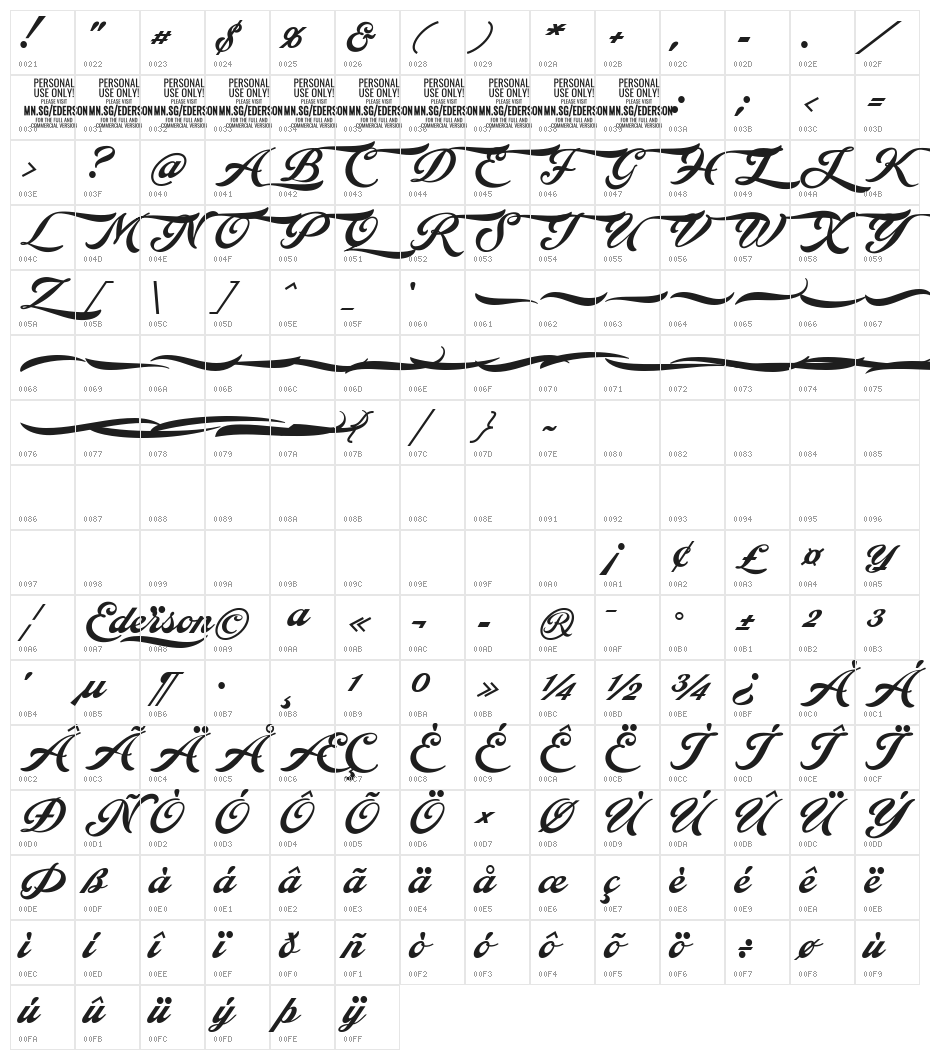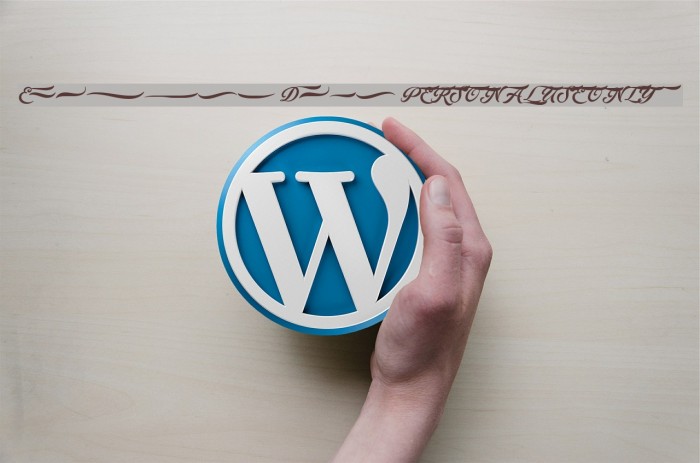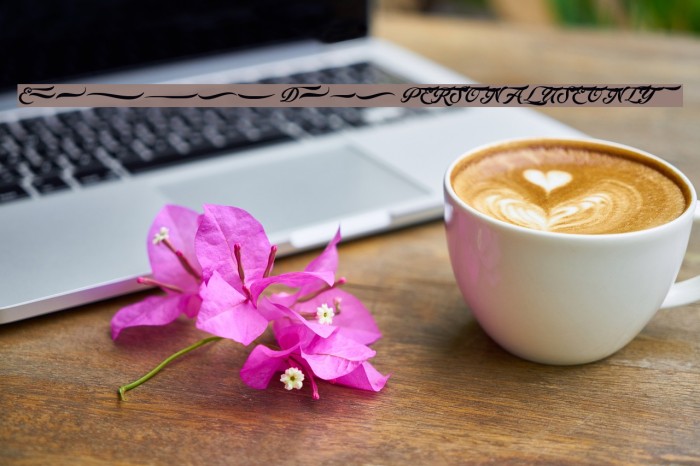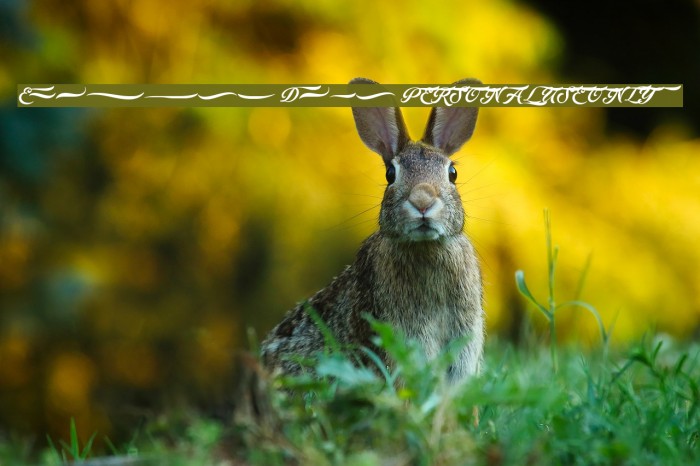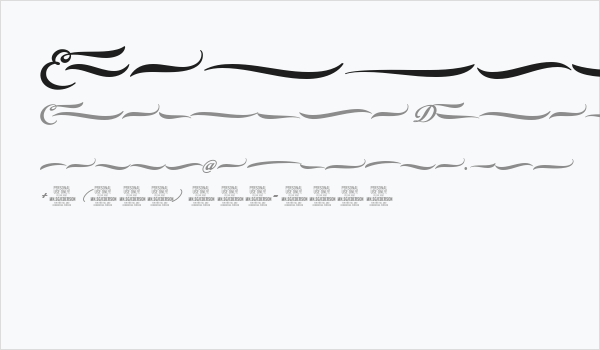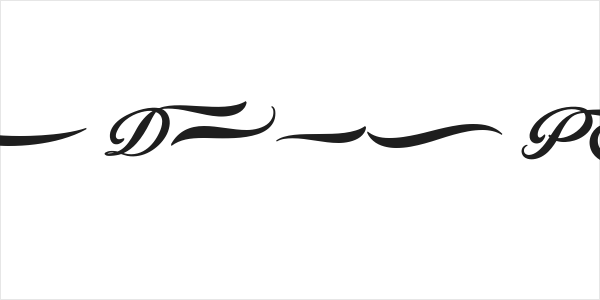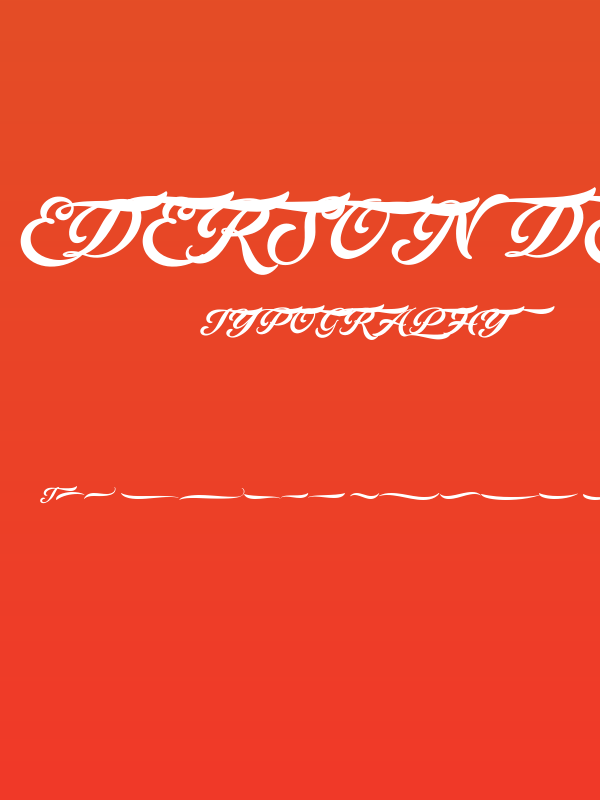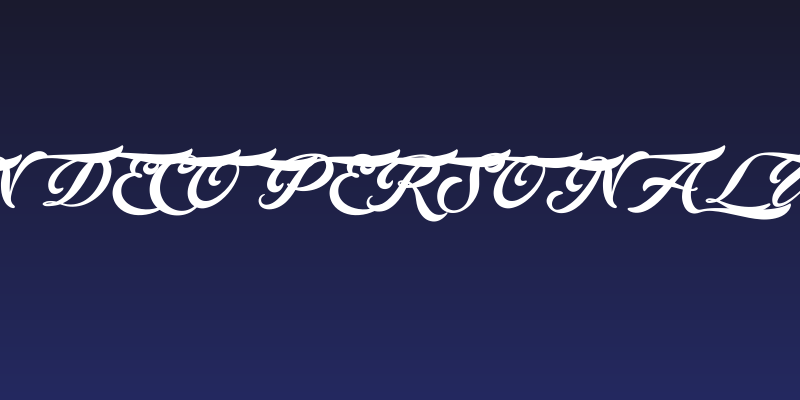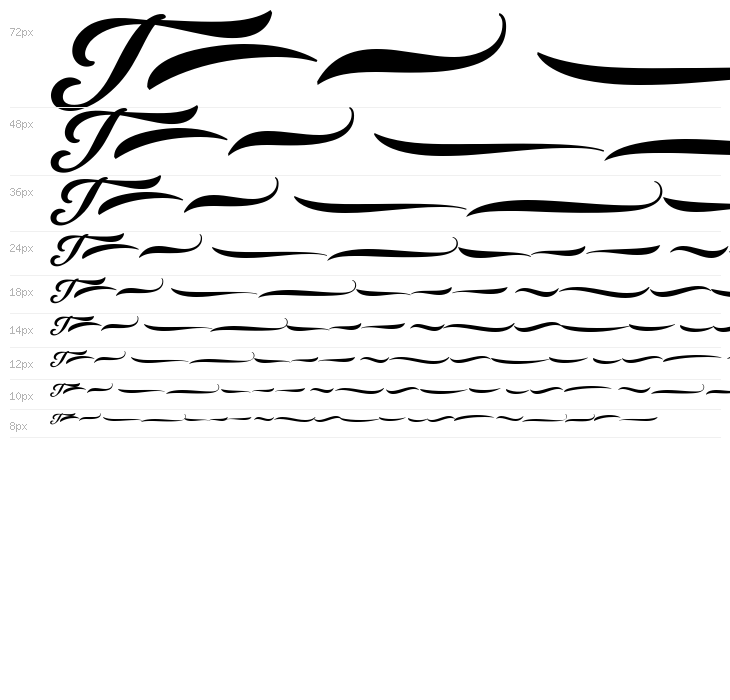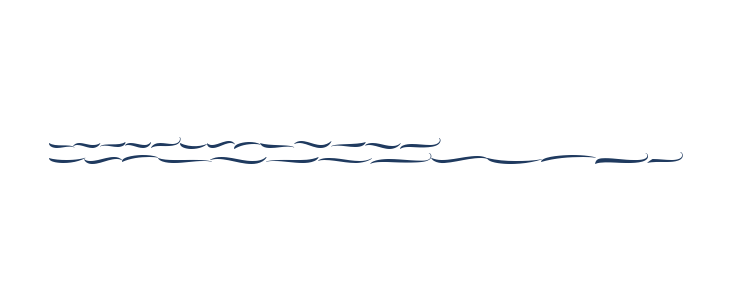
Ederson Deco PERSONAL USE ONLY Font
Ederson Deco PERSONAL USE ONLY Description
This font features an elegant and flowing script style, characterized by its ornate and decorative letterforms. The uppercase letters exhibit a dramatic flair with sweeping curves and intricate details, while the lowercase letters maintain a consistent and harmonious flow. The overall appearance is reminiscent of classic calligraphy, with a modern twist that adds a touch of sophistication. The font includes a full set of uppercase and lowercase letters, numerals, and a variety of special characters, making it versatile for various design needs. Its intricate design and high contrast between thick and thin strokes give it a distinctive and eye-catching look.
| Use Case | Logos, Invitations, Headlines |
| Proposed Projects | Ideal for wedding invitations, elegant branding, luxury product packaging, and decorative headlines. |